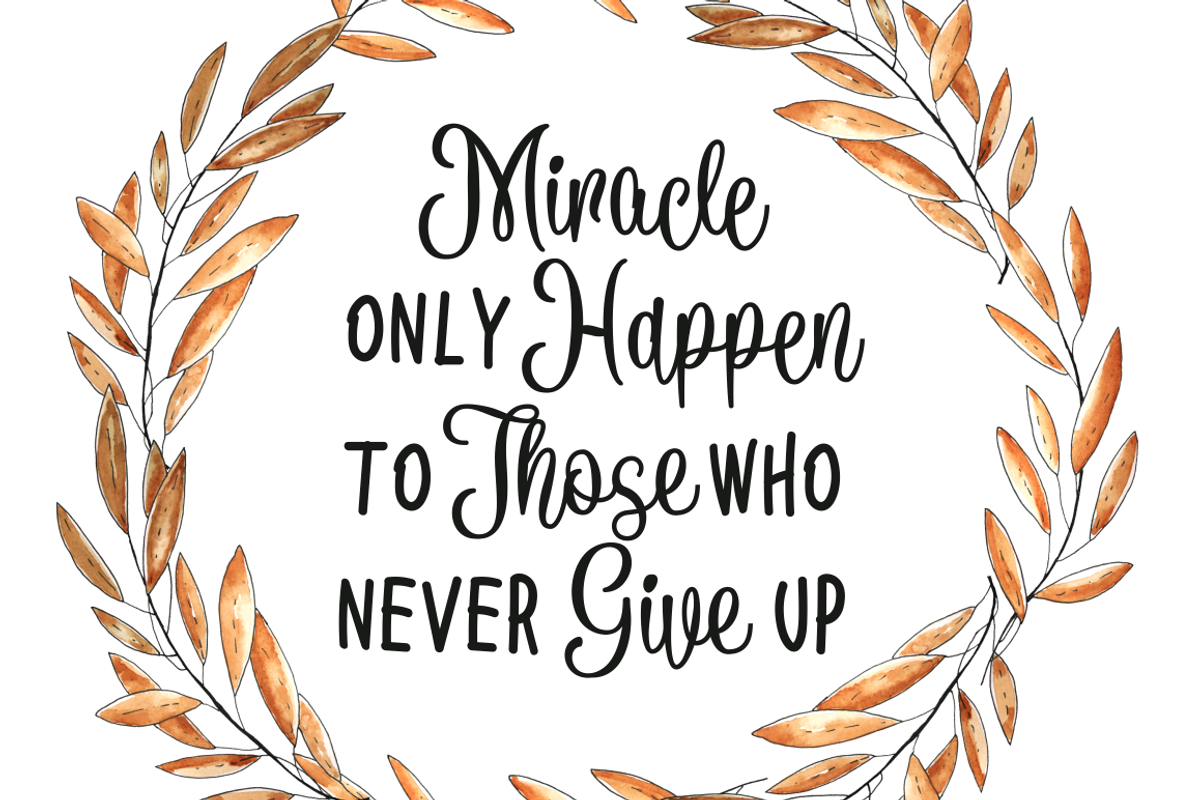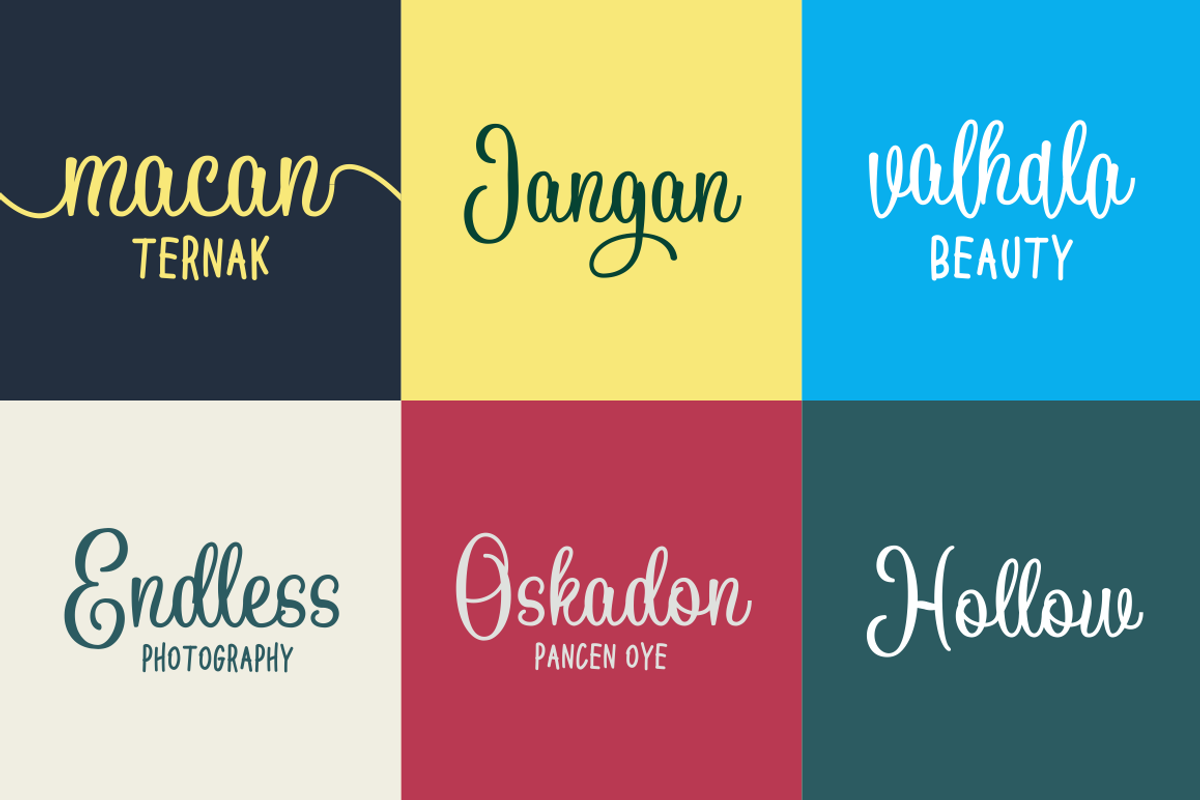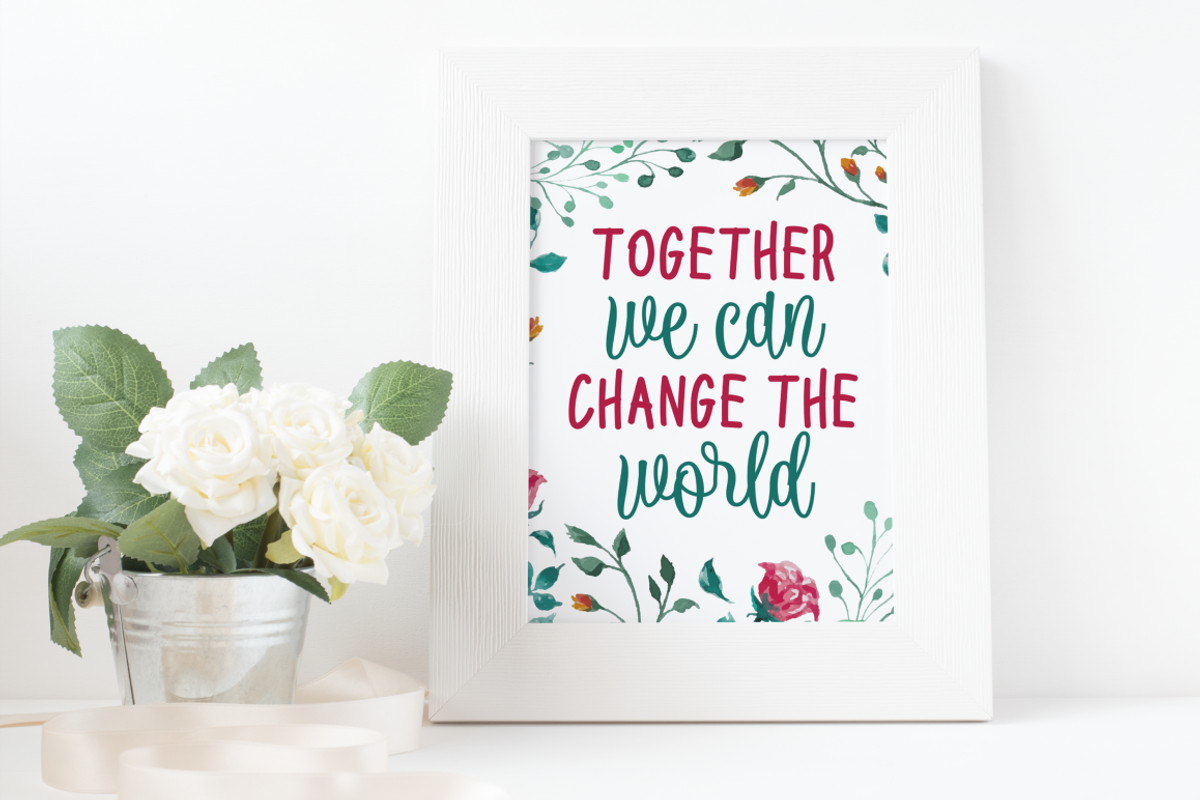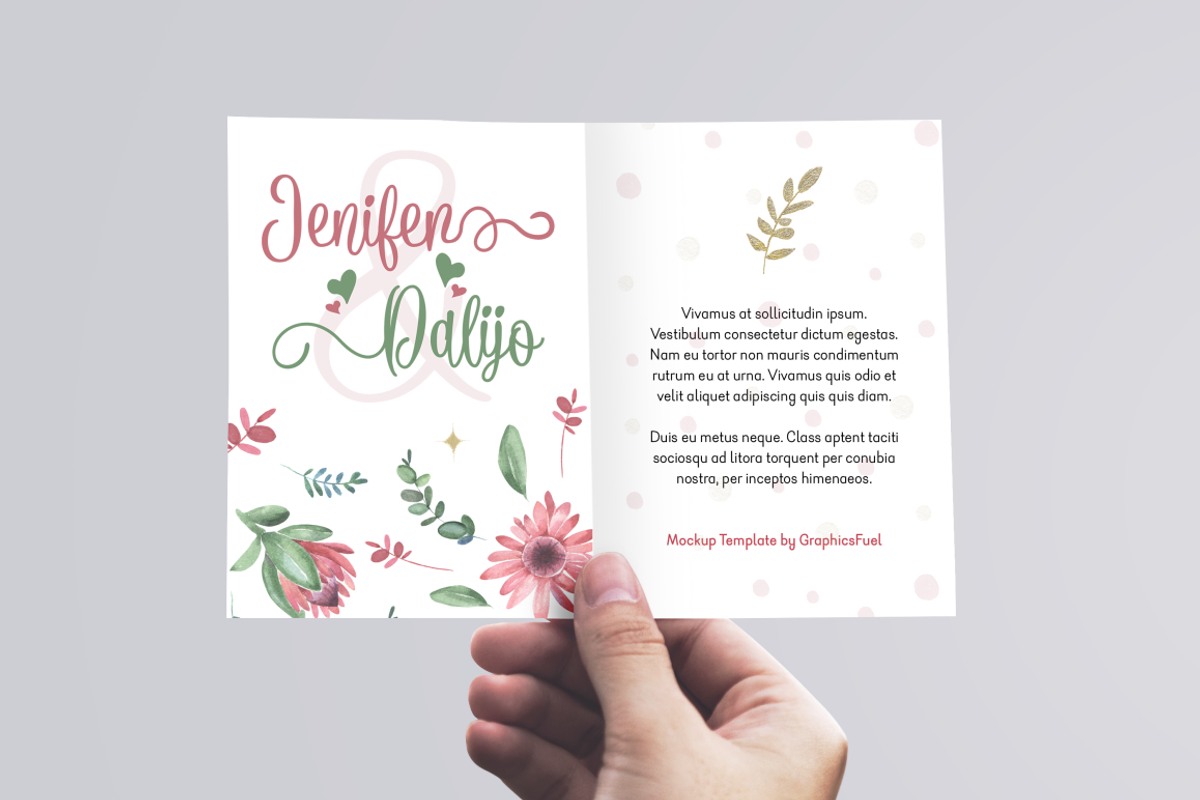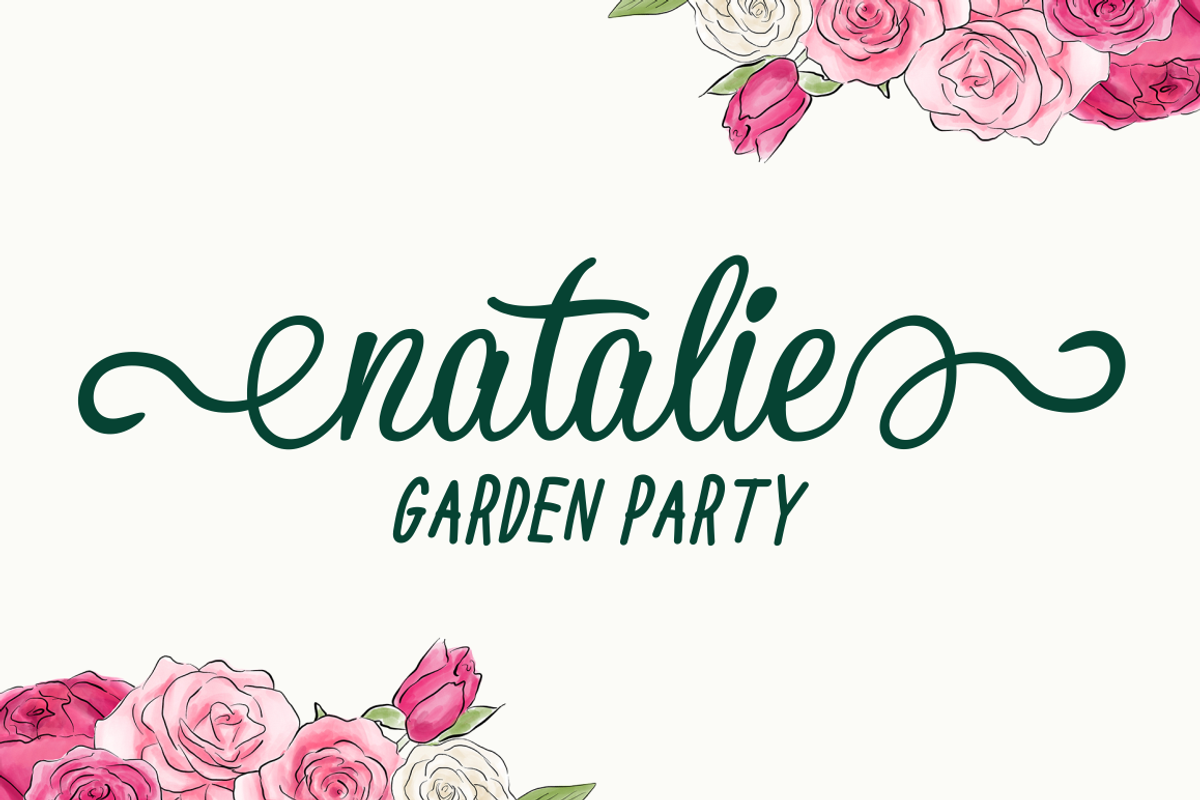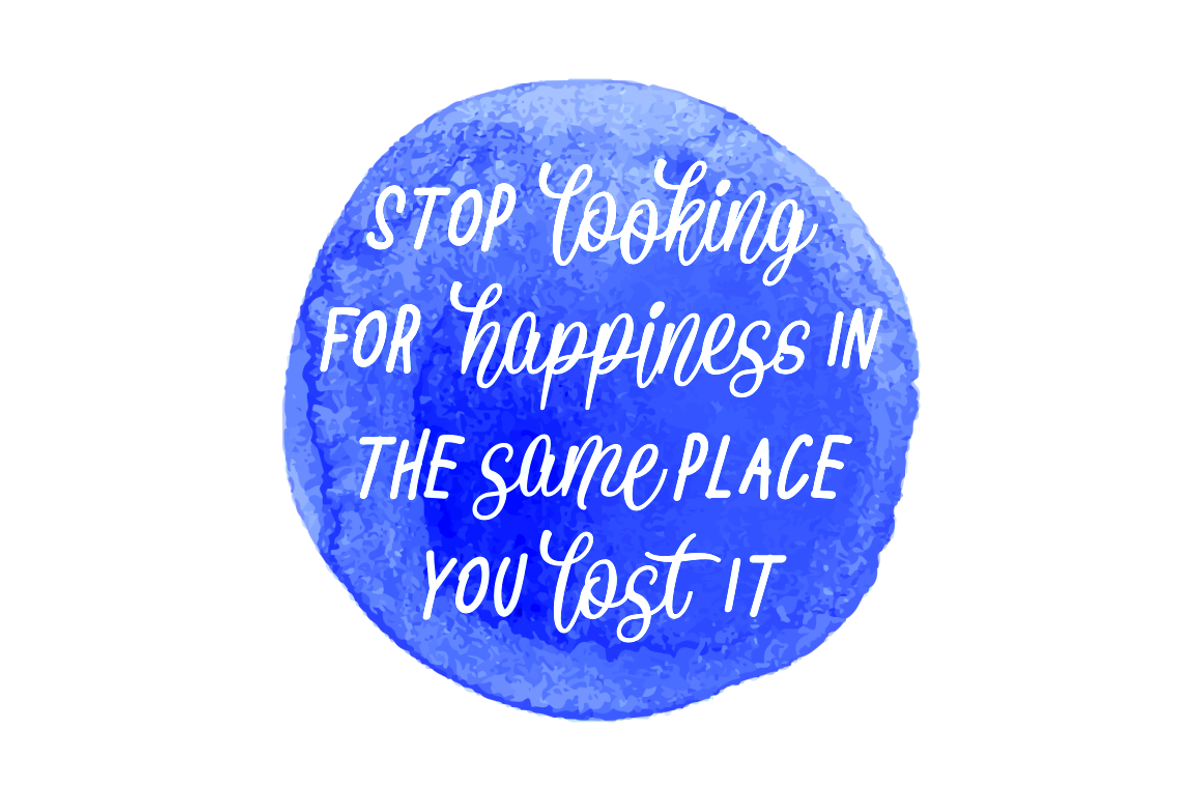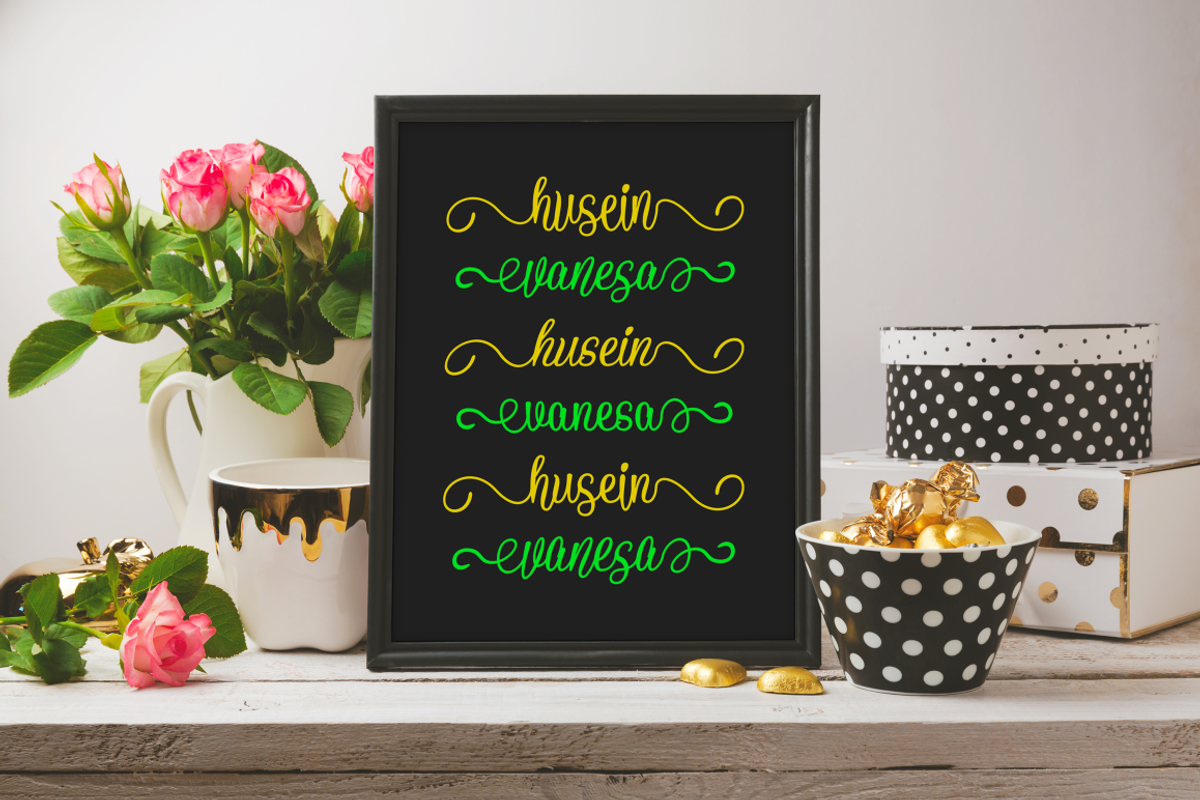
Battallion Font Duo
Introducing Battallion Font Duo. A perfect combination between modern calligraphy script and handwritten font. You can play around with the main script. It can be plain style or bouncy style with the opentype features. You can use this font for make some quotes, logotype, wedding invitation, love letter and many more.
Standard Character ( Uppercase, Lowercase, Numeric, Punctuation )
Multilingual Accent Support
Discretionary Ligatures
NOTE : Front swash will work for some uppercase only like B K H , etc. But it will work for all lowercase.